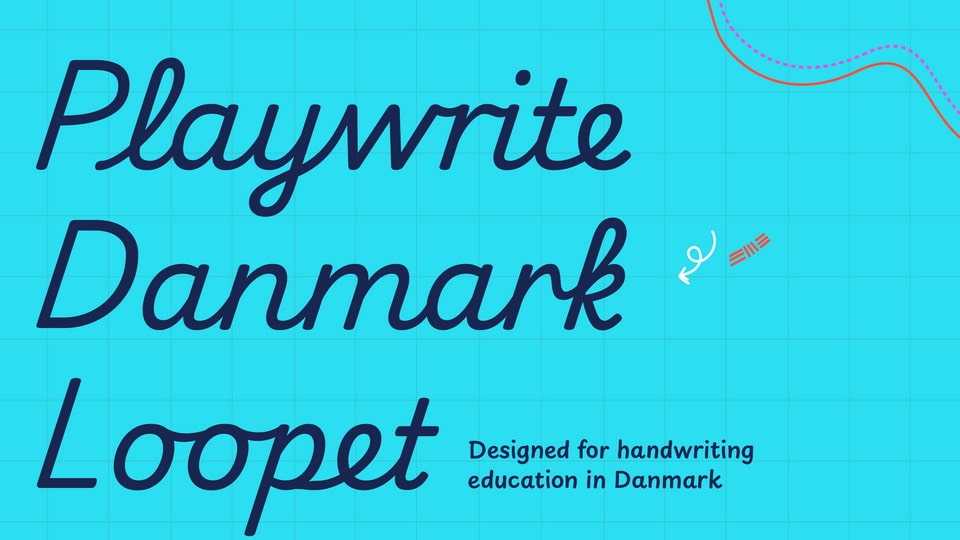
Download Playwrite Danmark font, a typeface that allows the creation of primary school cursive fonts. Two cursive models during the middle of second or the beginning of third year — the unlooped Grundskrift, or its looped variation known as Grundskrift med løkker.